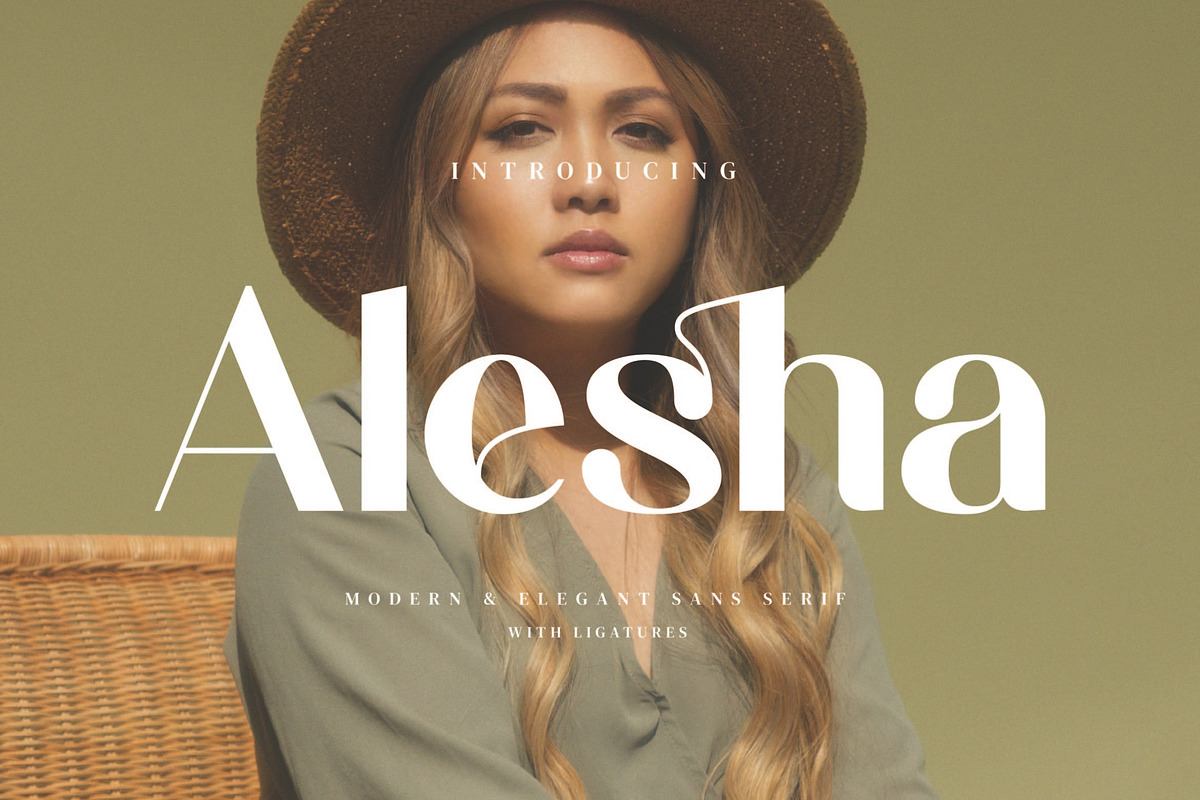
Alesha - Modern Sans Font Free Download
Alesha - Modern Sans Font Free Download is a clean, minimalist sans-serif typeface designed with modern, geometric shapes and balanced proportions. Its crisp lines and contemporary aesthetic make it perfect for a wide range of design projects, including websites, branding, editorial layouts, social media graphics, and logos.
The simplicity and versatility of Alesha give it a timeless, professional appeal, making it ideal for both corporate and creative applications. Whether you're crafting a clean user interface or creating an elegant logo, this font brings clarity and style to any project.